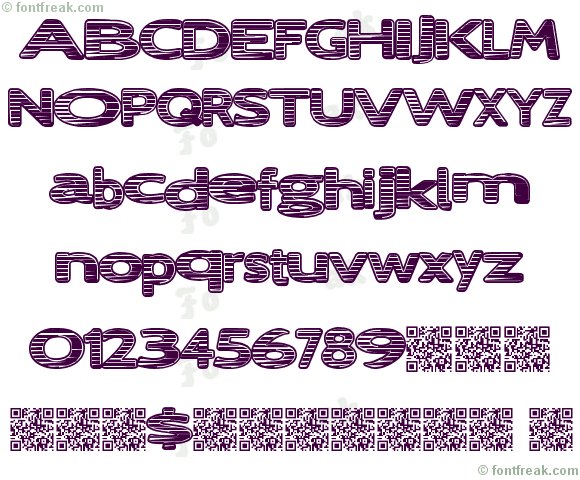
LostRay
About LostRay
LostRay, created by XEROGRAPHER FONTS in 2013, is a captivating display font that blends creativity with a unique visual flair. This font features a playful, rounded style with a distinct striped pattern that adds an element of fun and intrigue to any design project. The stroke weight is consistent, providing a balanced appearance, while the spacing is generous, ensuring readability. The decorative elements of the stripes bring a dynamic quality, making LostRay stand out in a crowded field of typefaces.
This font is particularly well-suited for a variety of applications. It shines in wedding invitations, where its whimsical design can evoke a sense of joy and celebration. Movie posters benefit from its eye-catching aesthetic, drawing viewers in with a modern yet playful vibe. Restaurant menus can leverage LostRay's unique character to create a memorable dining experience, while marketing materials for events or festivals can utilize its charm to attract attention. Graphic designers, small business owners, and content creators will find it a valuable addition to their toolkit, allowing them to express their creativity in fresh, engaging ways.
What sets the LostRay font apart is its ability to convey personality without sacrificing legibility. The combination of its distinctive striped design and friendly rounded forms makes it versatile for both casual and formal contexts. Whether you're crafting an inviting invitation or an engaging promotional piece, LostRay offers a refreshing touch that captures attention and leaves a lasting impression. For those looking to enhance their projects with a unique touch, the LostRay font free download is an excellent choice, ensuring that creativity can flourish in every design endeavor.